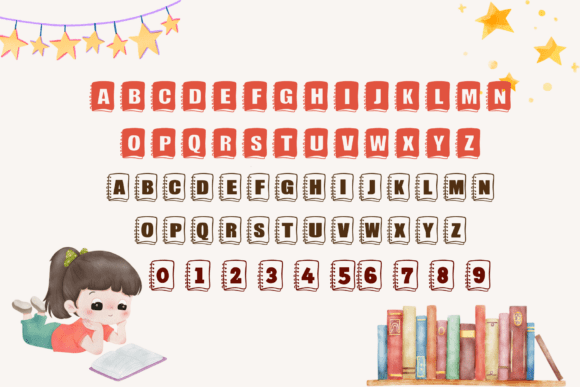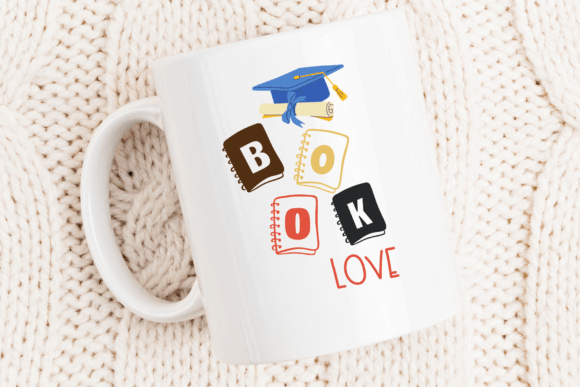
Get Ready to Unleash Your Creativity with Book Kids Font
Who among us hasn’t felt that spark of creativity when browsing through a bookstore or flipping through the pages of a favorite novel? The smell of fresh paper, the feel of the cover, and the thrill of discovering a new story all combine to inspire us to create something of our own.
For designers, Book Kids Font is a treasure trove of possibilities. This decorative font is perfect for taking notes, writing a diary, or making greeting cards, but its applications don’t stop there. You can use it to create eye-catching banners, engaging content, and even custom designs for mugs, cards, shirts, and stationery. The Book Kids Font is a versatile tool that can elevate your designs and make them stand out from the crowd.
Key Features of Book Kids Font
- Font Family: Book Kids is a unique font designed specifically for children’s books, offering a playful and educational feel.
- Character Set: Supports a wide range of characters, including uppercase and lowercase letters, numbers, punctuation, and special characters, making it suitable for various applications.
- Resolution: Optimized for high-resolution displays, ensuring crisp and clear text even at larger sizes.
- Unique Characteristics: Book Kids Font features a distinctive, child-friendly design with rounded edges, making it an excellent choice for children’s books, educational materials, and other applications where a playful tone is desired.
Book Kids Font Review
Overall, I think the Book Kids Font is a solid addition to any designer’s toolkit. The font is designed to evoke a sense of whimsy and playfulness, making it perfect for children’s books, educational materials, and other projects where a friendly tone is desired.
- ✨ The font’s bold and italic styles add a lot of versatility to the design, allowing you to create a range of visual effects.
- ✨ The font is highly legible, even at smaller font sizes, making it a great choice for text-heavy projects.
- ✨ The font’s unique design elements, such as the rounded edges and subtle ornamentation, add a touch of personality to the design.
- ⚠️ The font may not be suitable for projects where a more formal or professional tone is required.
- ⚠️ The font’s unique design elements may not be to every designer’s taste, and some may find them too playful or childish.
- ⚠️ The font may not be compatible with all operating systems or software, so be sure to test it thoroughly before use.
Overall, I think the Book Kids Font is a great choice for designers looking to add a touch of whimsy to their projects. With its unique design elements and highly legible text, it’s a great option for children’s books, educational materials, and other projects where a friendly tone is desired.
To get the most out of the Book Kids Font, use it in contexts where a playful, child-friendly font is needed, such as:
– Children’s book covers
– Educational materials
– Party invitations
The Book Kids Font is commonly used in:
– Children’s literature
– Educational software
– Kids’ party invitations
– Social media graphics for kids’ brands
Alternatives to Book Kids Font for Designers
Lobster is a fun, cursive font that is perfect for adding a touch of whimsy to your designs. It’s great for titles, headings, and other text that needs a playful feel. When to use: For casual, creative projects like blogs, social media, and advertisements. Compared to Book Kids Font, Lobster has a more casual and relaxed feel, making it ideal for projects that require a friendly tone.
Great Vibes is a beautiful, handwritten font that is perfect for adding a personal touch to your designs. It’s great for quotes, captions, and other text that needs a touch of elegance. When to use: For upscale, creative projects like wedding invitations, luxury brands, and fine art. Compared to Book Kids Font, Great Vibes has a more sophisticated and refined feel, making it ideal for projects that require a touch of class.
Q: Are there any variations or styles of the Book Kids Font available?
Yes, the Book Kids Font is available in several styles, including Regular, Bold, Italic, and Bold Italic. Additionally, there are various font sizes and weights available, allowing you to customize the font to suit your specific design needs.